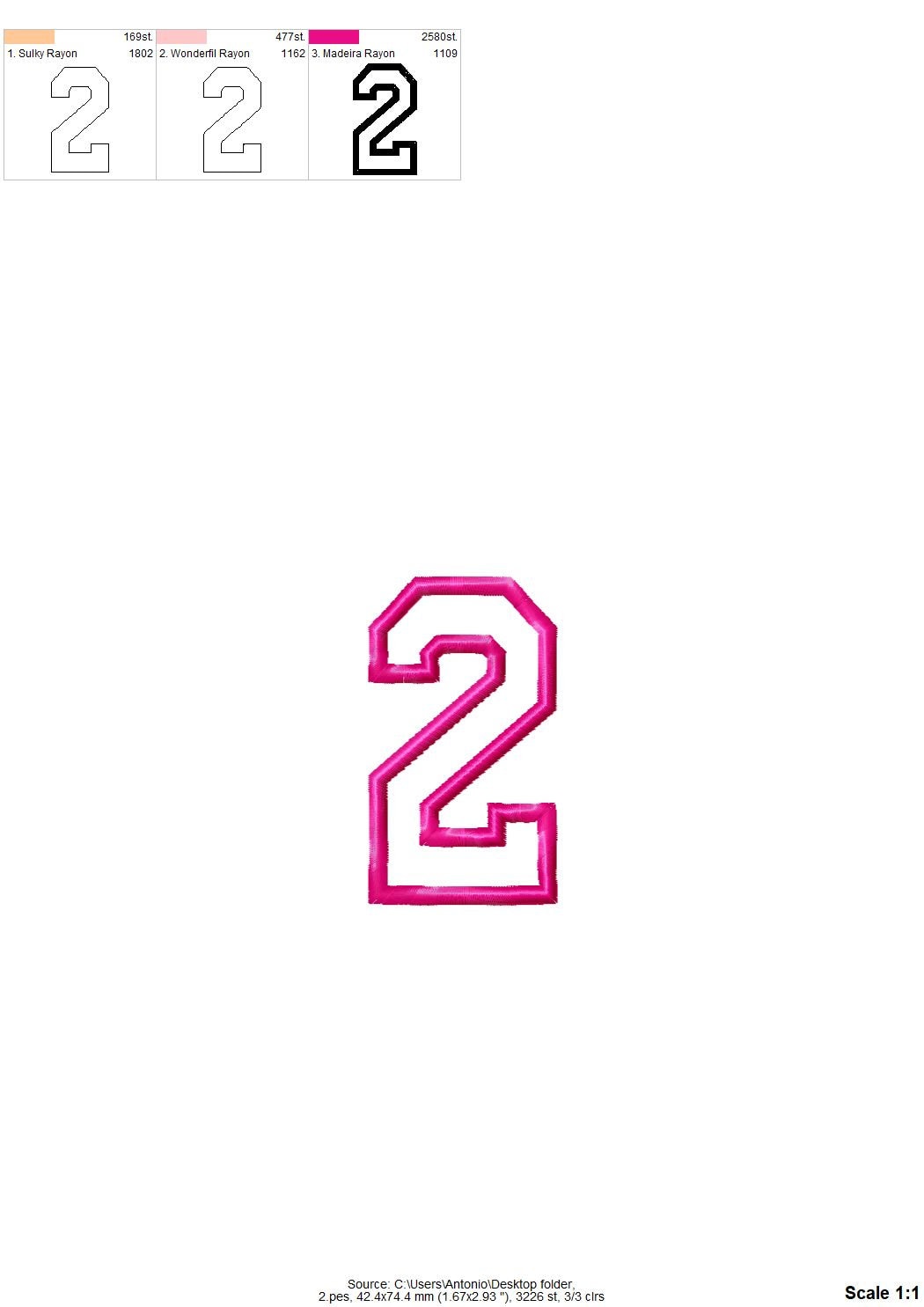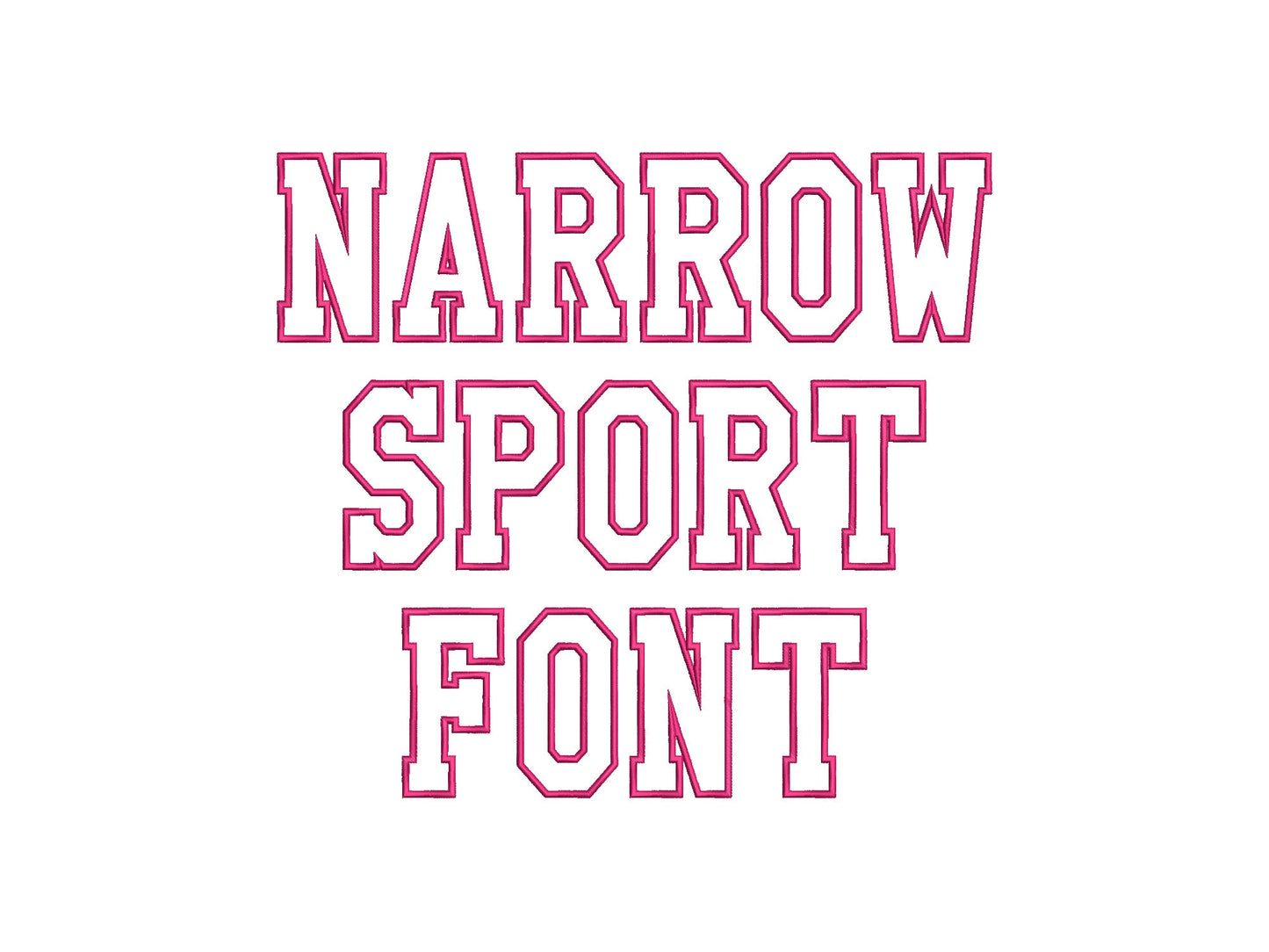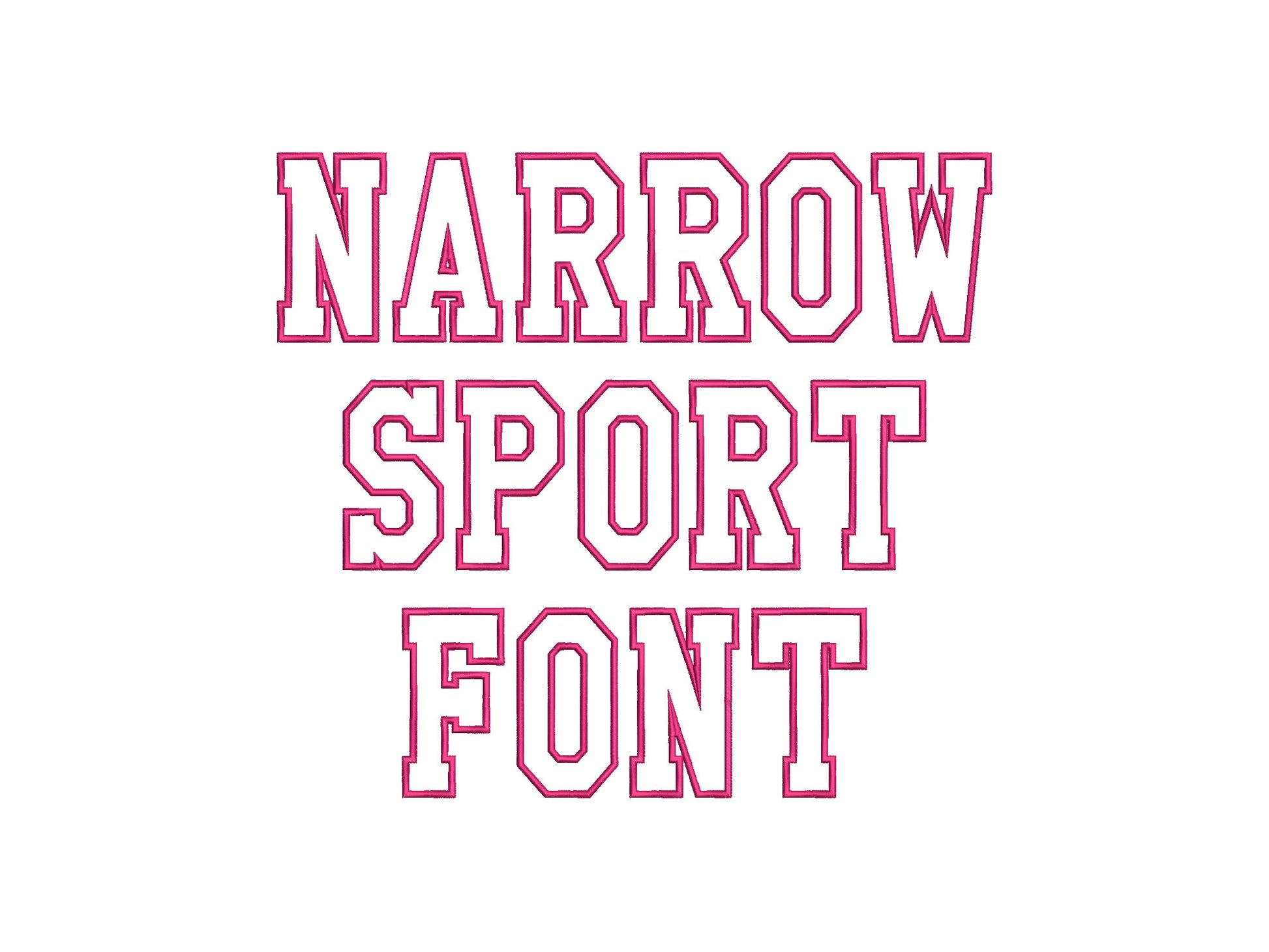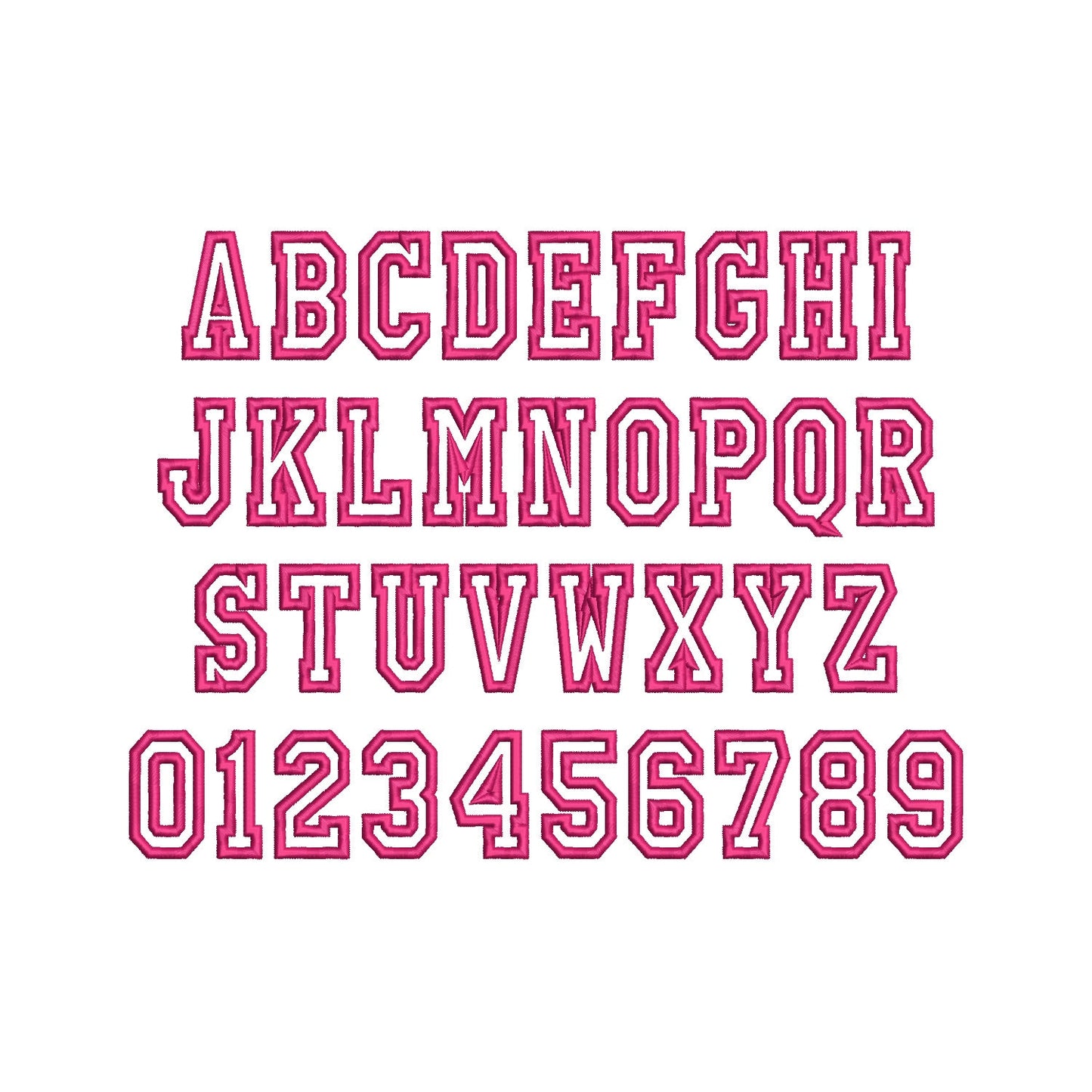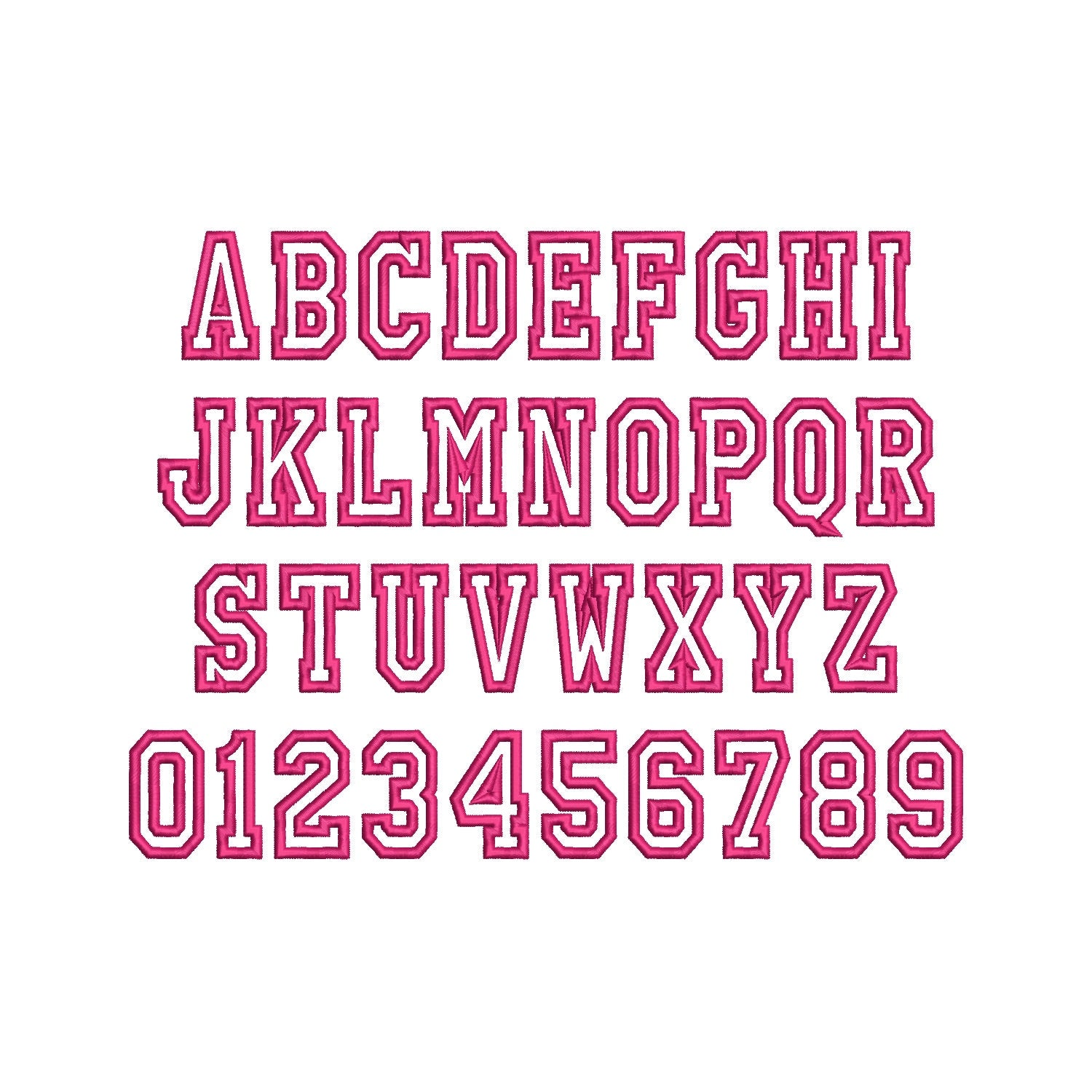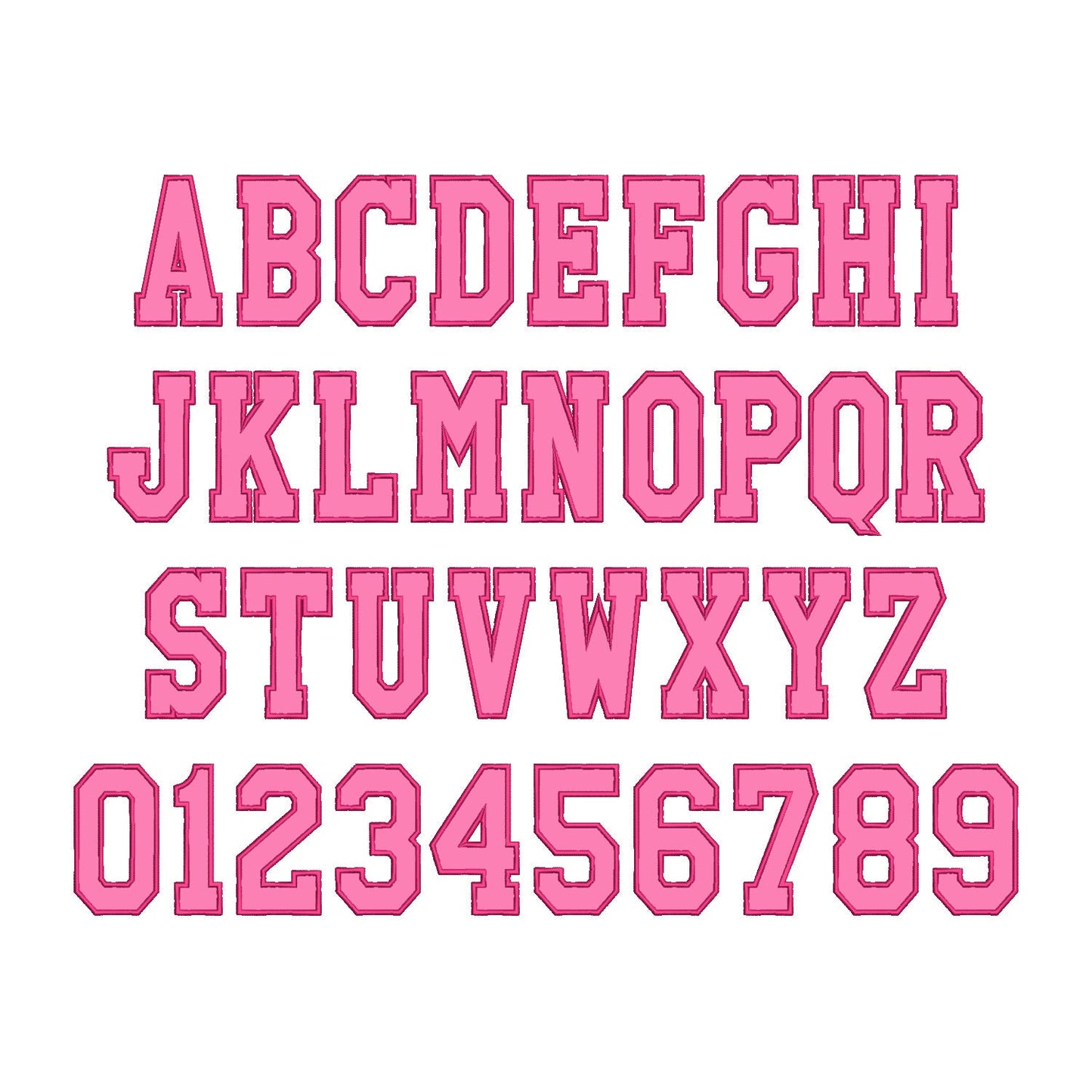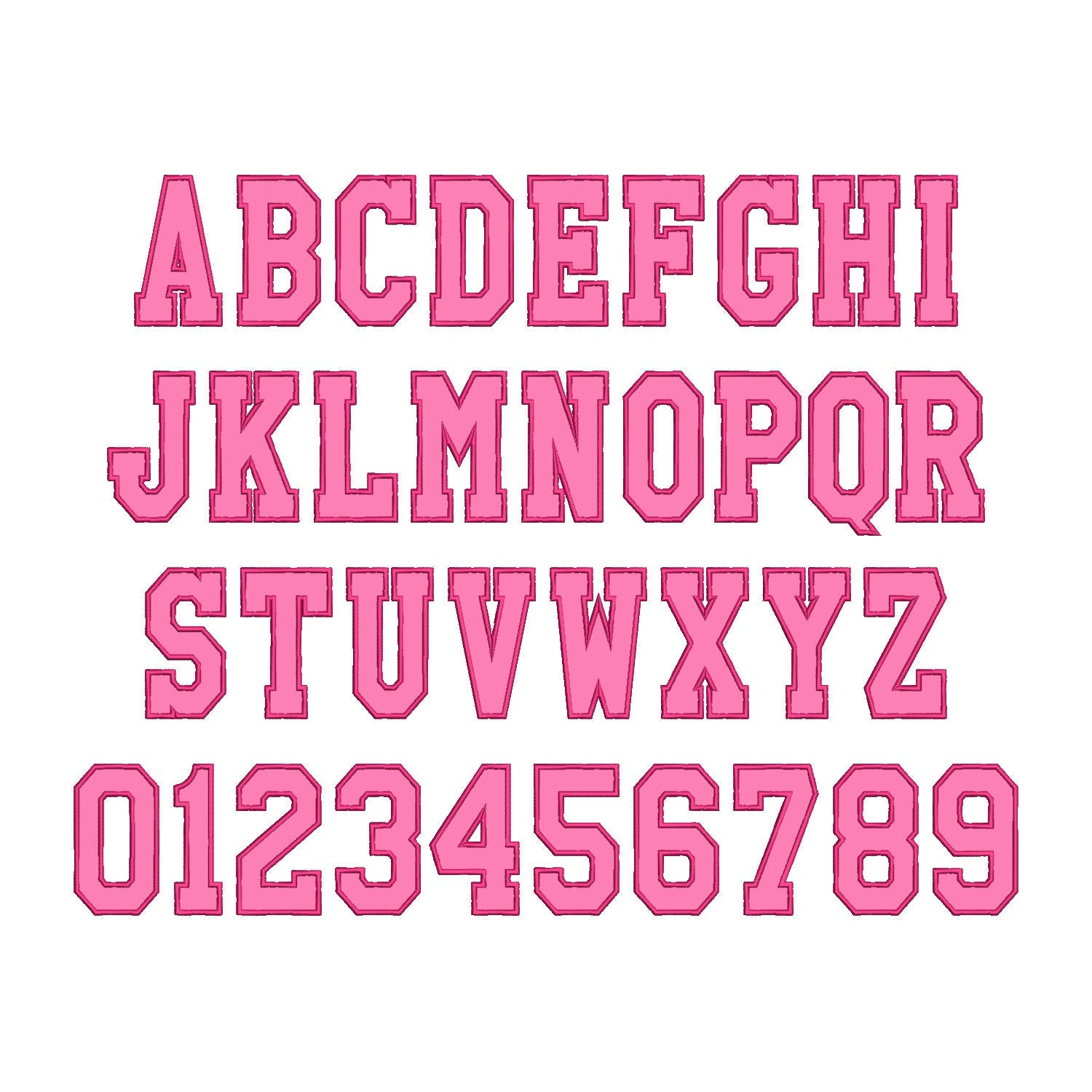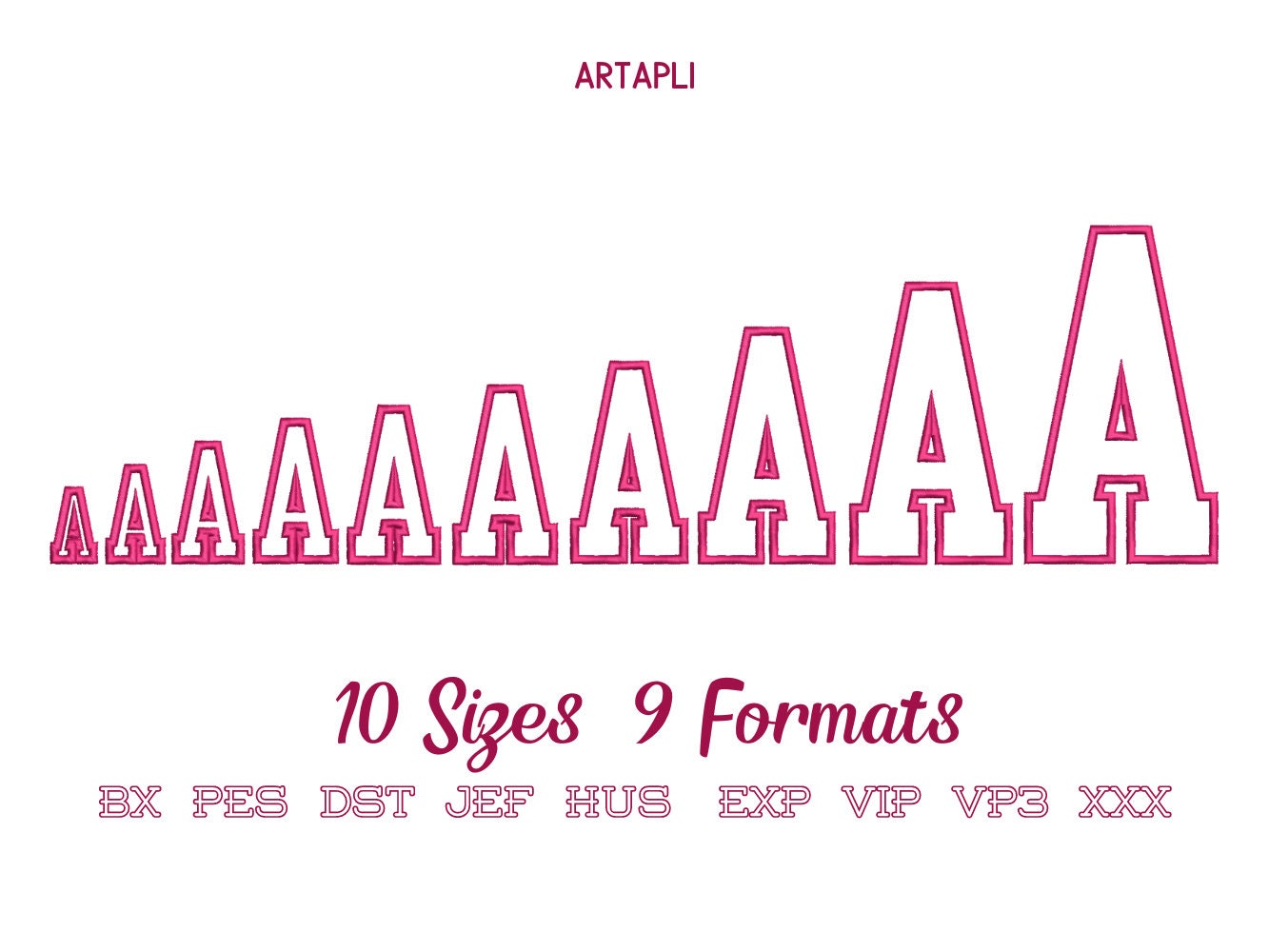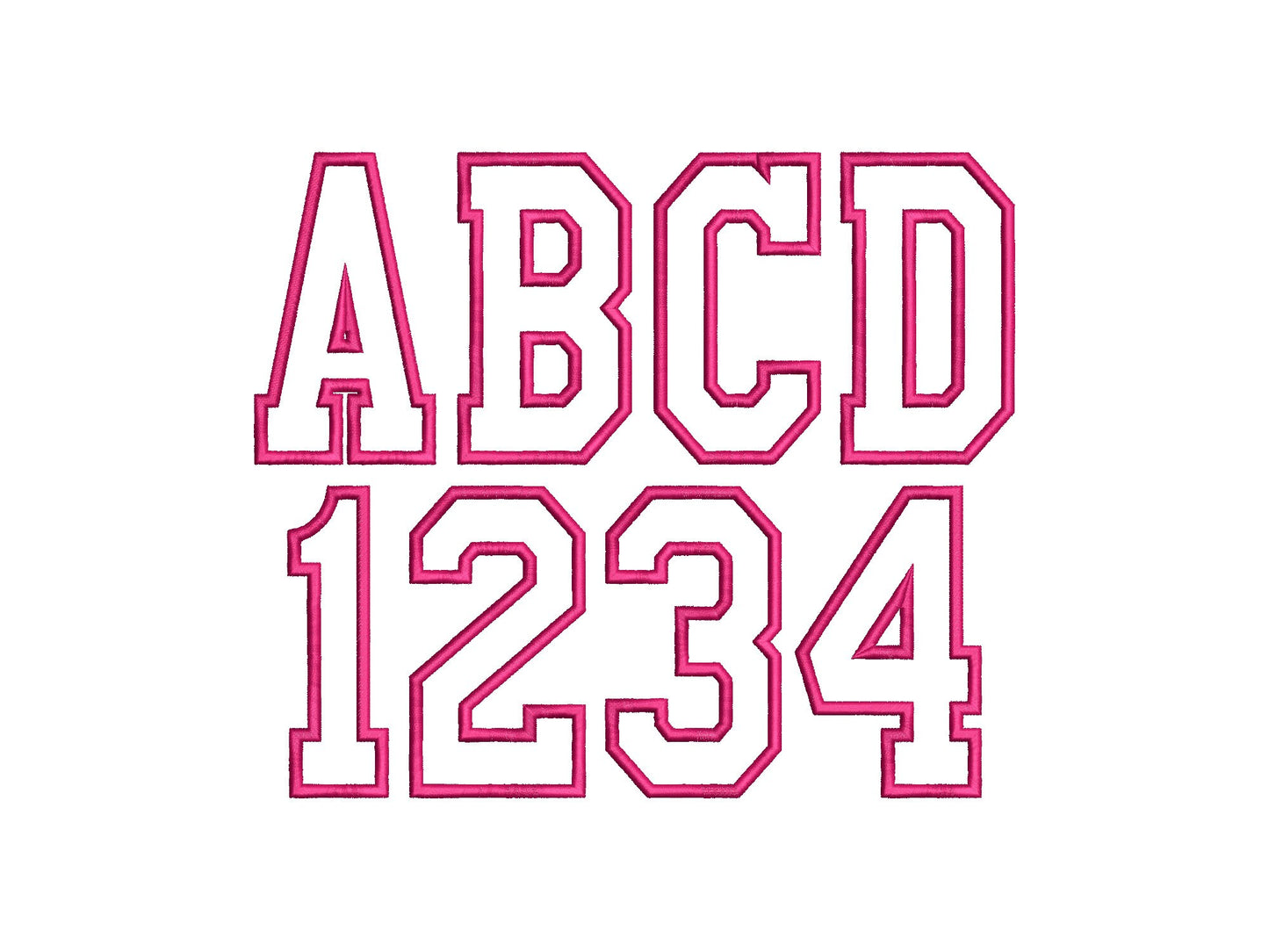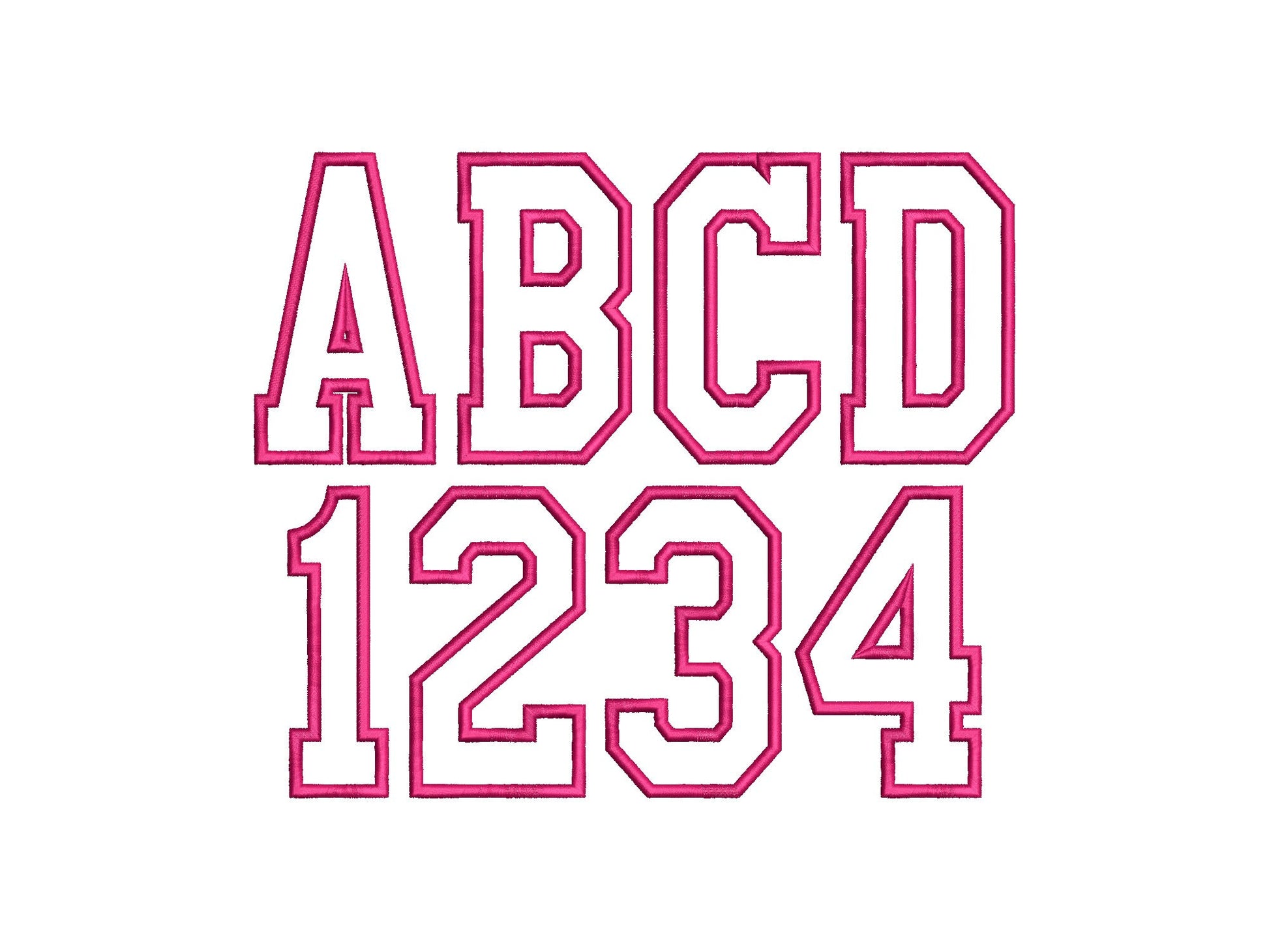
Great font. Easy to use
The narrow design worked perfectly for a long word I was able to fit nicely on a sweatshirt. Great job!
Stitched out nicely, with no problems.
This was the perfect font to use for going away to college gifts! I can see myself using it for many years to come.
Love the ease of making a layout for stitching. Narrow and easy to trim around.
very pleased over all the A file needs to be redone the placement and tack down stitch are combined I have embroidery software so I was able to separate but for anyone not having additional software keep that in mind
Love. Use this font all the time
Alphabet qui rend très bien ! je recommande !
Nice thick satin stitch !
Stitched out well. Thank you!
This font is beautiful and stitched out perfectly. The lettering is clean, crisp, and very well digitized. I am very happy with this purchase and would definitely buy from this seller again.
worked great! super easy to use Loved.
Will use again time after time. Such a good thing to have on hand for the last minute ideas.
Love this font for sweatshirts
Stitches out well. Exactly what I needed
Stitched out beautifully! I love this font because it's "skinny" enough so you can fit a larger word on the front of a sweatshirt.
Looks so great. stitch was amazing.
Every font from this shop has been great.
File messed up and stitched out mis-aligned placement and tack down stitch and after I messaged the seller for help I never got a response.
This file is digitized perfect for appliqué. The stitch file and satin stitch is perfect to secure the fabric.
Amazing, I just used this font this past week, I'm in LOVE!
The small font isnt usable. The boarder of the letters is very thick and the stitches overlap on letters like E. The outline appears to get thinner as the letters become larger. There is no consistency.
I love this shop they have great stuff. And this font is one of them. I agree with a previous comment that says they wish it was a little more spaced out on the smaller fonts. But it’s perfect for sweatshirts and the satin stick is very forgiving.
Stitched perfect and was exactly what I needed
Great font, looks great sewn out.
Item stitched out perfectly. Would recommend
Stitched just as I expected. So so great!
No complaints, font was exactly as pictured.
Just as the post said it would be
Amazing file! Stitched so beautifully!
This stitched good. Thank you
Great font, thank you so much :)
Excellent quality stitch out. I would recommend.
Sewed out beautifully. Thank you.
Great font! Just what I was looking for and stitched out really well (as artapli fonts always do)!
Stitched out great as always
I used this for my first applique design and it worked perfectly. I did use the 3.5" medium size with no issues. I love this design.